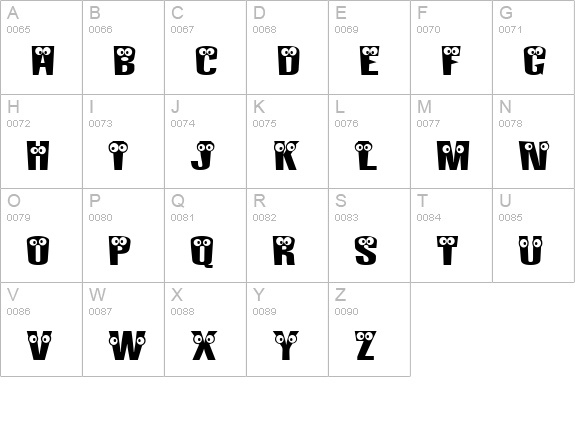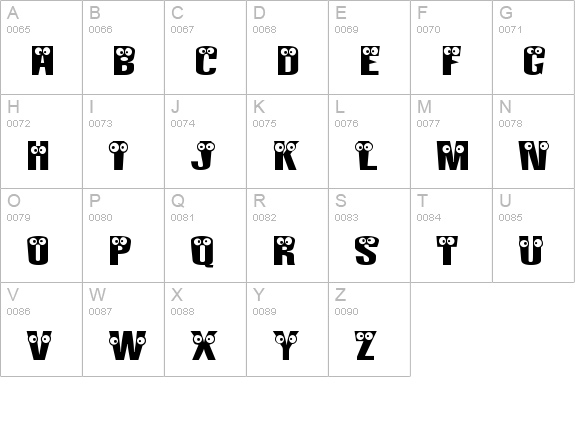
KABlokHead Font Details
Introducing KABlokHead font, a bold and eye-catching typeface that is sure to make a statement. With its unique and playful design, this font is perfect for adding a touch of personality to any project. Whether you're looking to create attention-grabbing headlines, eye-catching posters, or playful logos, KABlokHead font is the perfect choice. With its bold and chunky letterforms, KABlokHead font commands attention and demands to be noticed. Each letter is carefully crafted to have a slightly rounded shape, adding a sense of playfulness and charm. The solid and sturdy construction of this font ensures legibility even at smaller sizes, making it a versatile choice for both print and digital designs. What sets KABlokHead font apart is not only its bold and unique design, but also the fact that it is available for free. That's right, you can download this font for free at FontsMarket.com. This means that you can use KABlokHead font in your personal and commercial projects without having to worry about any licensing restrictions or fees. Whether you're a graphic designer, a small business owner, or a creative individual looking to add a touch of personality to your projects, KABlokHead font is the perfect choice. Its bold and playful design, combined with its availability as a free download, makes it a valuable addition to any font collection. So why wait? Download KABlokHead font today from FontsMarket.com and let your creativity shine with this bold and unique typeface. Whether you're designing a logo, creating a poster, or crafting a headline, KABlokHead font is here to help you make a lasting impression.